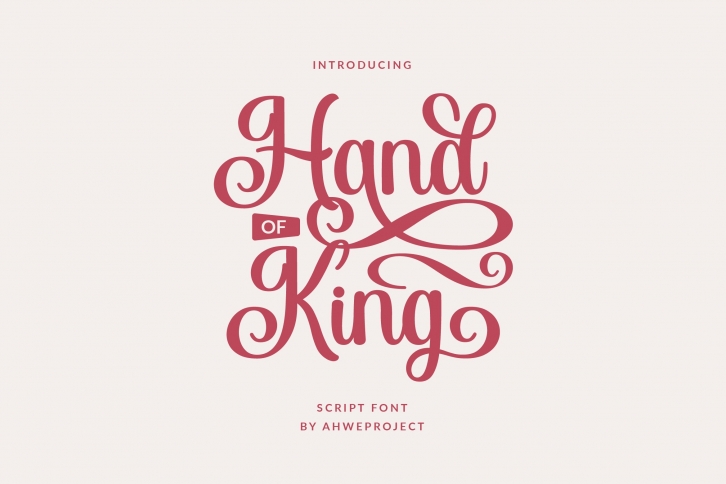
Hand of King is a beautiful font that was designed by Ahwe Project. It's a great choice for designers and creatives who need such a font. It was released on March 29, 2021 and the file size is 10.61 MB. Hand of King may give a more youthful, expressive and casual look to your project. It is a very beautiful, refined, elegant, and high-quality font.